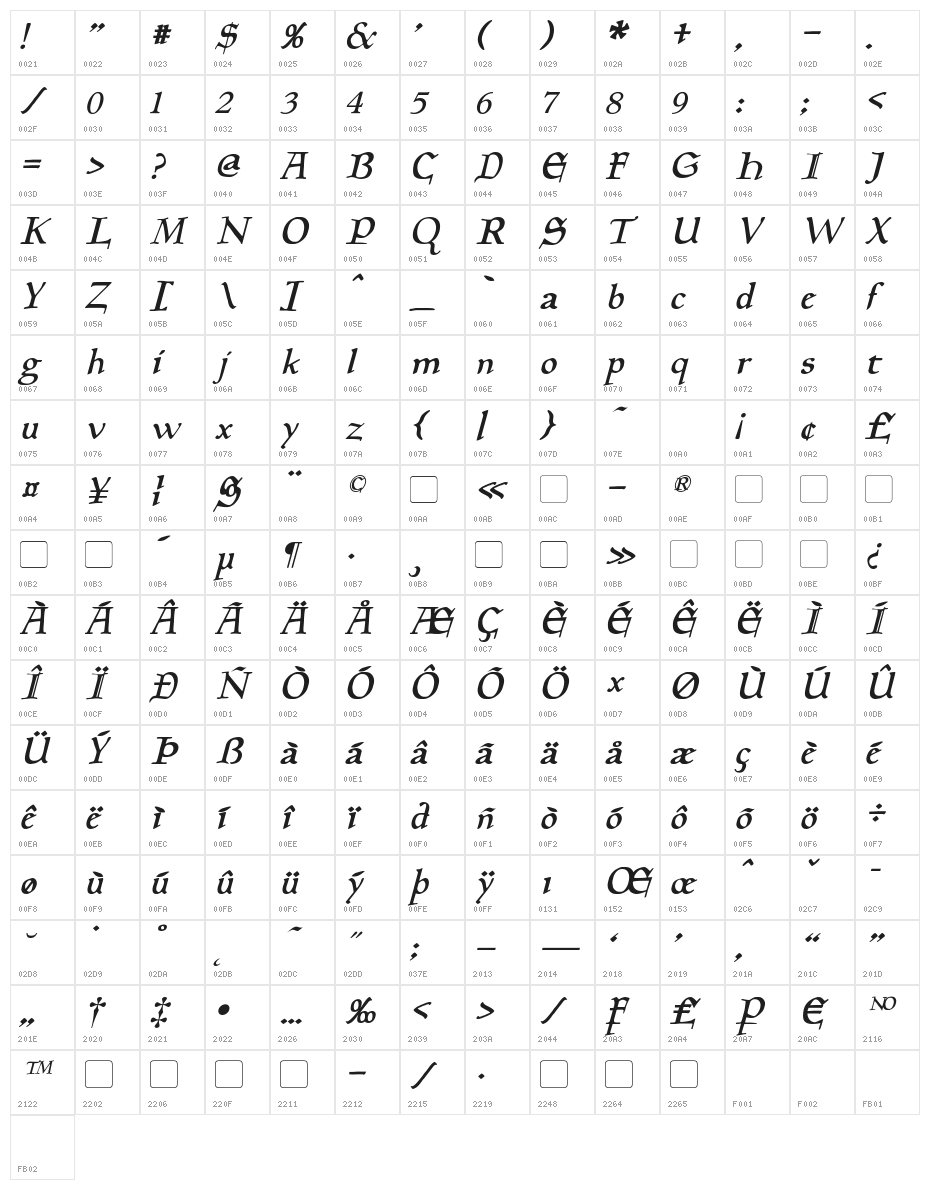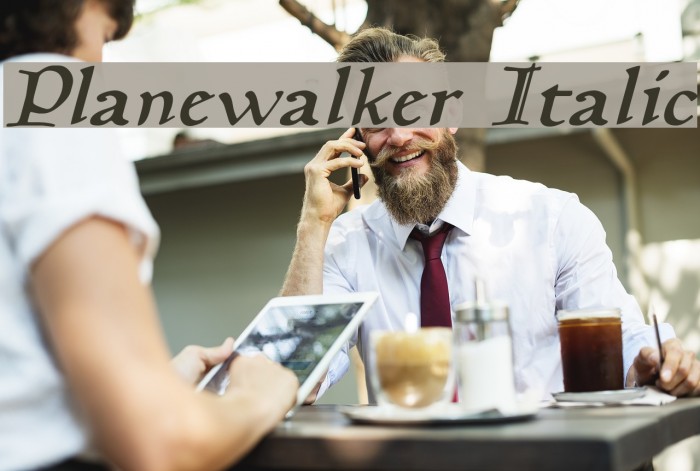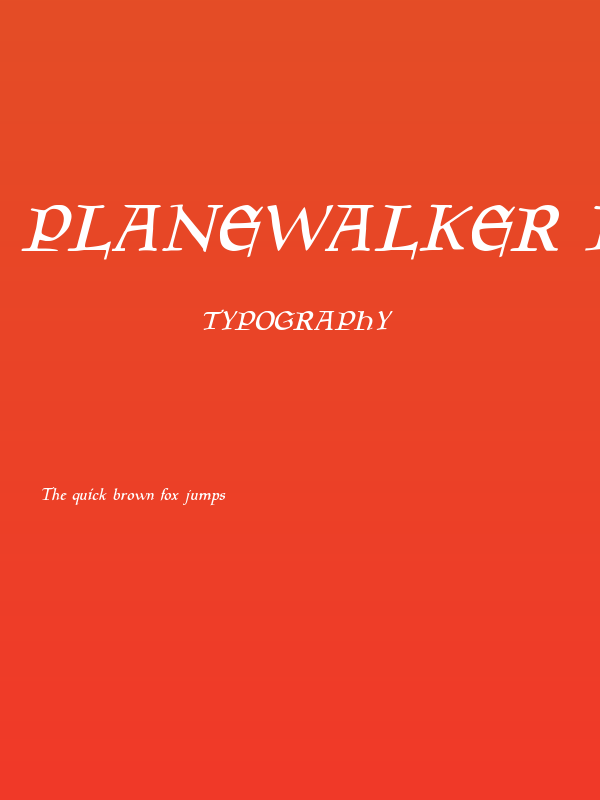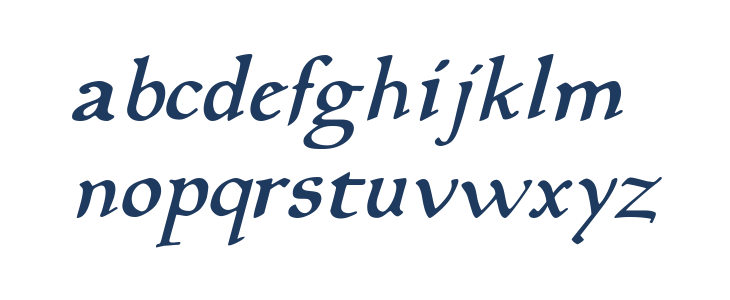
Planewalker Italic Font
Planewalker Italic Description
This font features a dynamic and elegant italic style, characterized by its fluid and slightly slanted letterforms. The uppercase letters exhibit a sophisticated flair with distinctive serifs, while the lowercase letters maintain a smooth and consistent flow. The numerals are well-proportioned, complementing the overall aesthetic. Special characters are thoughtfully designed, adding to the font's versatility. The strokes vary in thickness, providing a moderate contrast that enhances readability while maintaining an artistic appeal. This font is suitable for projects that require a touch of elegance and sophistication.